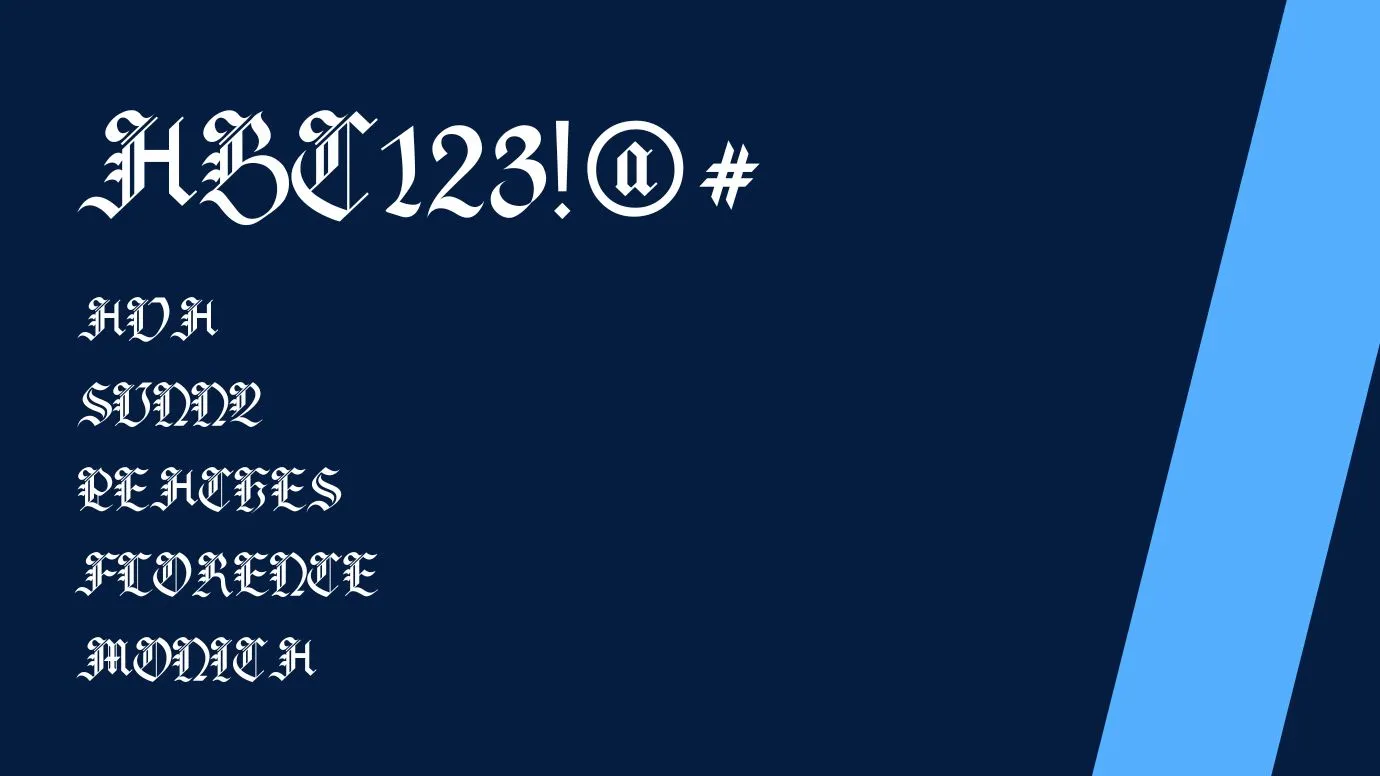
Let me introduce you to Lyric Poetry which is a gothic font designed by a famous typographic designer. It is a professional texture that is not complicated with computer-generated graphics.
It is quite similar to ancient font. The typeface is versatile and unique and can be used in a variety of different contexts. It is available in both True Type and Open Type formats. The font style also supports a wide range of languages.
The font with a unique but eerie regular style. The single attractive style is a mixture of plenty of features, including capital, small alphabets, punctuation, glyphs, digits symbols, and special characters.
Creator of Lyric Poetry Font
This typeface is a Gothic created by Chen Yining. The designer is quite popular among the font family because of his creativity.
View of Lyric Poetry Font
Lyric Poetry Font Details
| Name | Lyric Poetry Font |
| Style | Gothic |
| Designer | Chen Yining |
What type of font is Lyric Poetry Font?
It is a top-notch and professional typeface that belongs to the Gothic family. The font style also supports a wide range of languages.
Who is the designer of Lyric Poetry?
Lyric Poetry is a gothic typeface created by Chen Yining. The designer is quite popular among the font family because of his original ideas and imagination.
What fonts are similar to the Lyric Poetry typeface?
If you are looking for similarity then Chomsky Font and Ancient Font will match very well. It is a professional typeface.